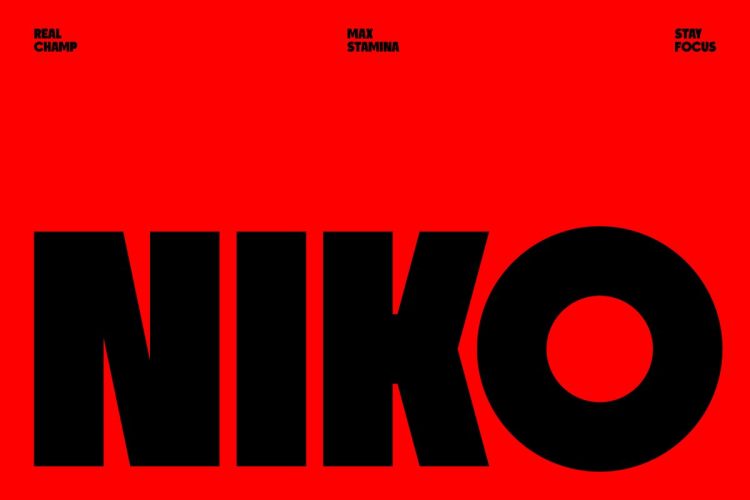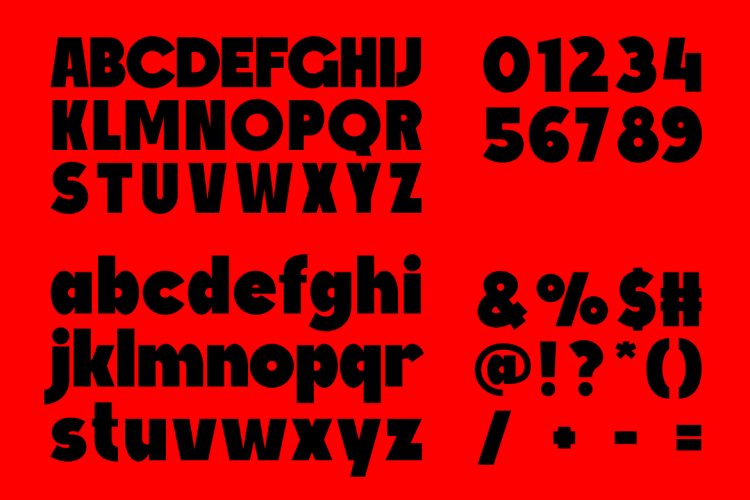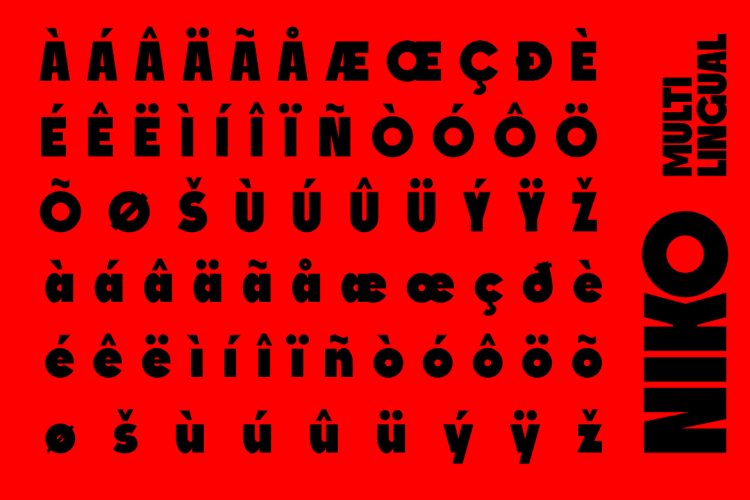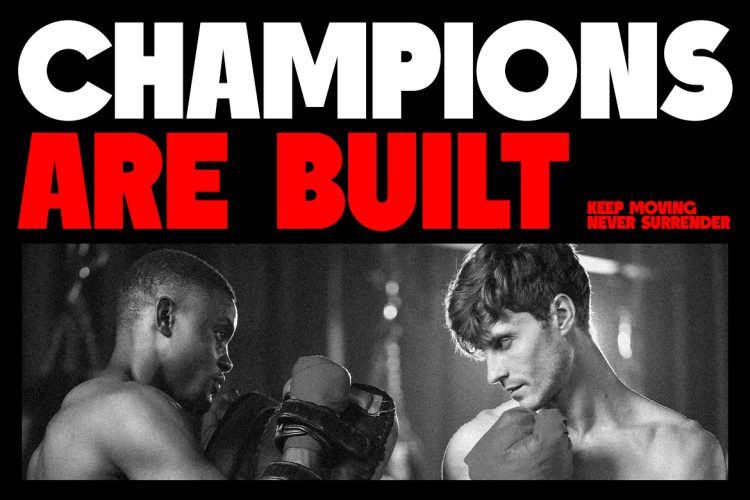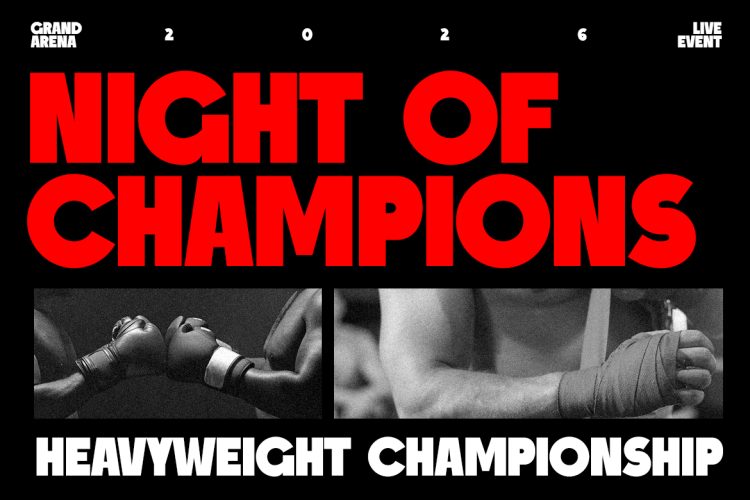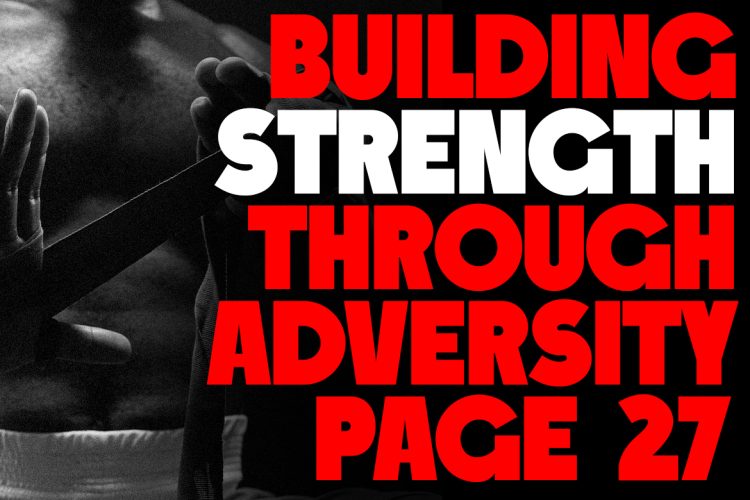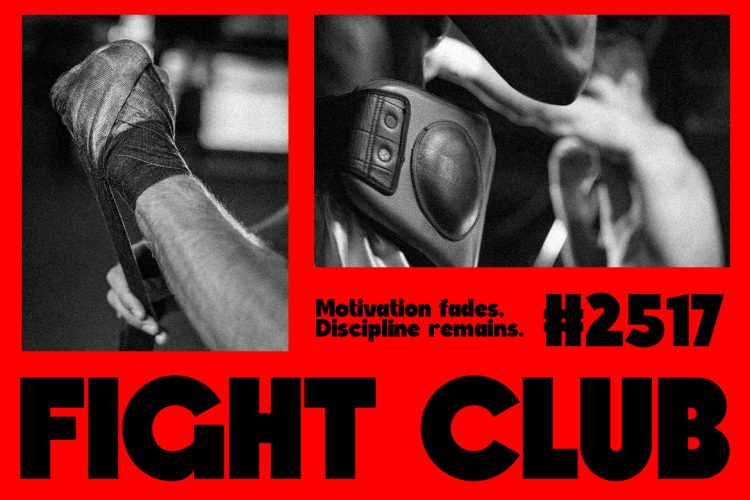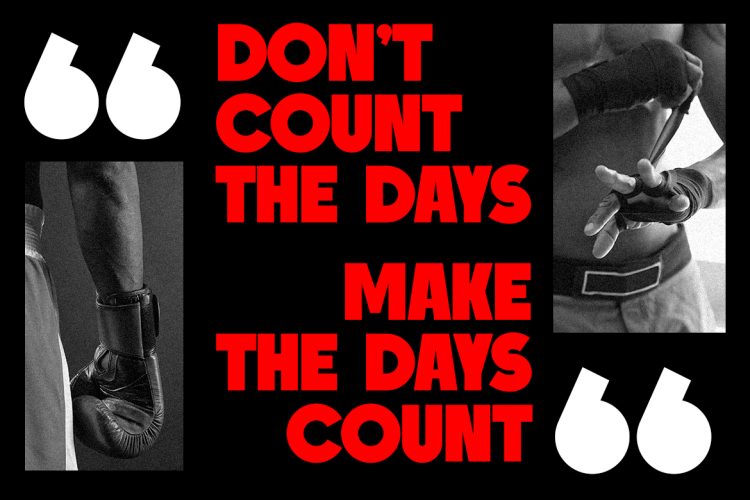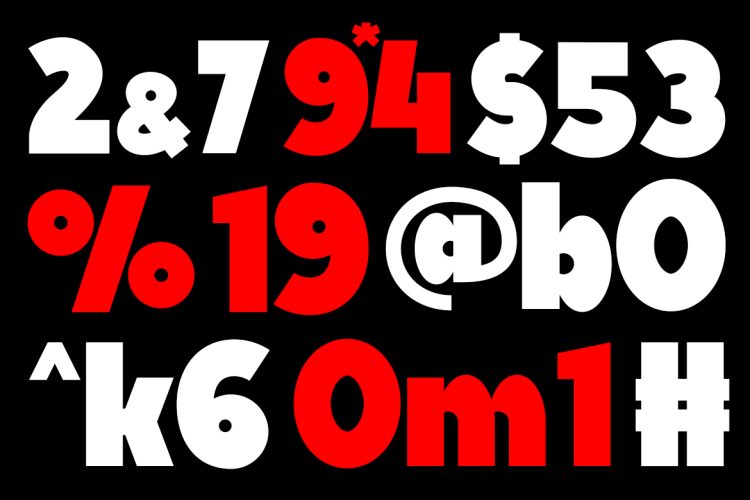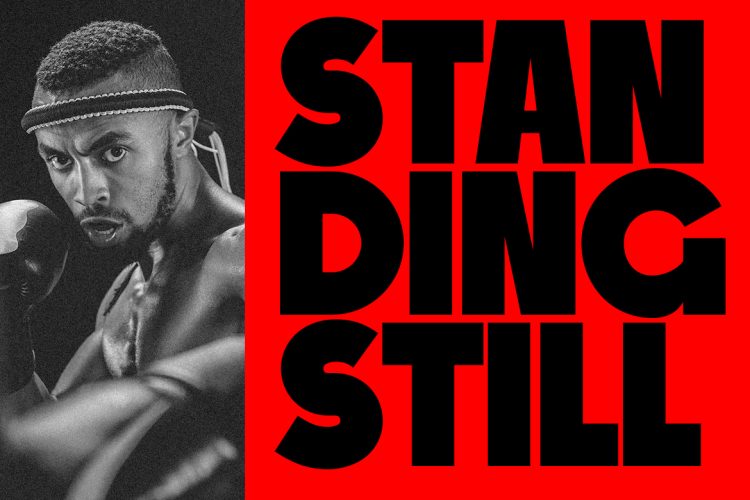
Instagram Font NIKO โ Built to Dominate Every Headline.
Instagram Font NIKO delivers fearless typography that commands attention through bold proportions, solid letterforms, and a modern athletic attitude. Unlike ordinary display fonts, NIKO turns every headline into a statement of strength and determination. Moreover, its clean geometric structure creates instant visual impact, while its heavy weight keeps every message clear and powerful. As a result, your designs stand out across print and digital platforms. In addition, the strong construction pairs naturally with high-energy visuals, so every composition feels confident and dynamic. Even better, NIKO includes Multilingual Support for 67 Languages, allowing you to create bold branding for audiences around the world.
Instagram Font NIKO Made for Brands That Never Settle
Instagram Font NIKO helps creators build visuals with authority and confidence. Not only does it amplify bold headlines, but it also gives every project a modern competitive edge. Whether you’re designing sports campaigns, fitness branding, boxing promotions, streetwear collections, esports graphics, posters, magazine covers, YouTube thumbnails, product packaging, social media content, or advertising materials, NIKO delivers outstanding visibility. Meanwhile, the bold spacing keeps every layout balanced, while the thick characters remain highly readable at any size. Furthermore, the versatile style adapts easily to minimalist or energetic compositions. Consequently, every design feels stronger, sharper, and more memorable.
- Sports branding
- Fitness campaigns
- Boxing promotions
- Streetwear apparel
- Esports graphics
- Posters & billboards
- Social media content
- Editorial headlines
Stand Strong. Design Bold.
If your project needs typography that refuses to be ignored, NIKO is ready to lead. Furthermore, every letter projects confidence from the very first glance. At the same time, its modern construction keeps every layout clean and professional. Therefore, your audience notices your message faster and remembers it longer. Finally, choose NIKO today and transform every headline into a bold visual statement.